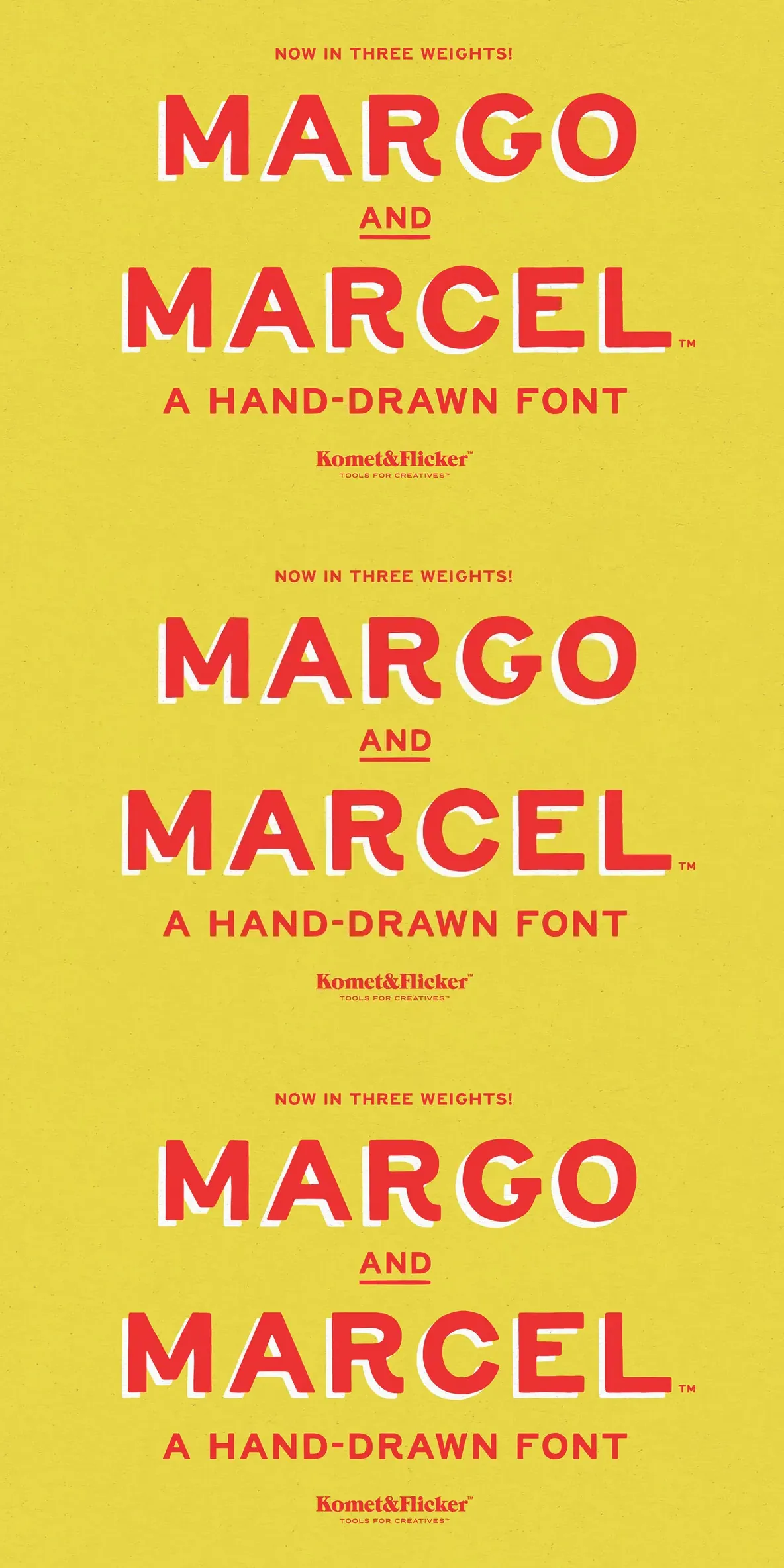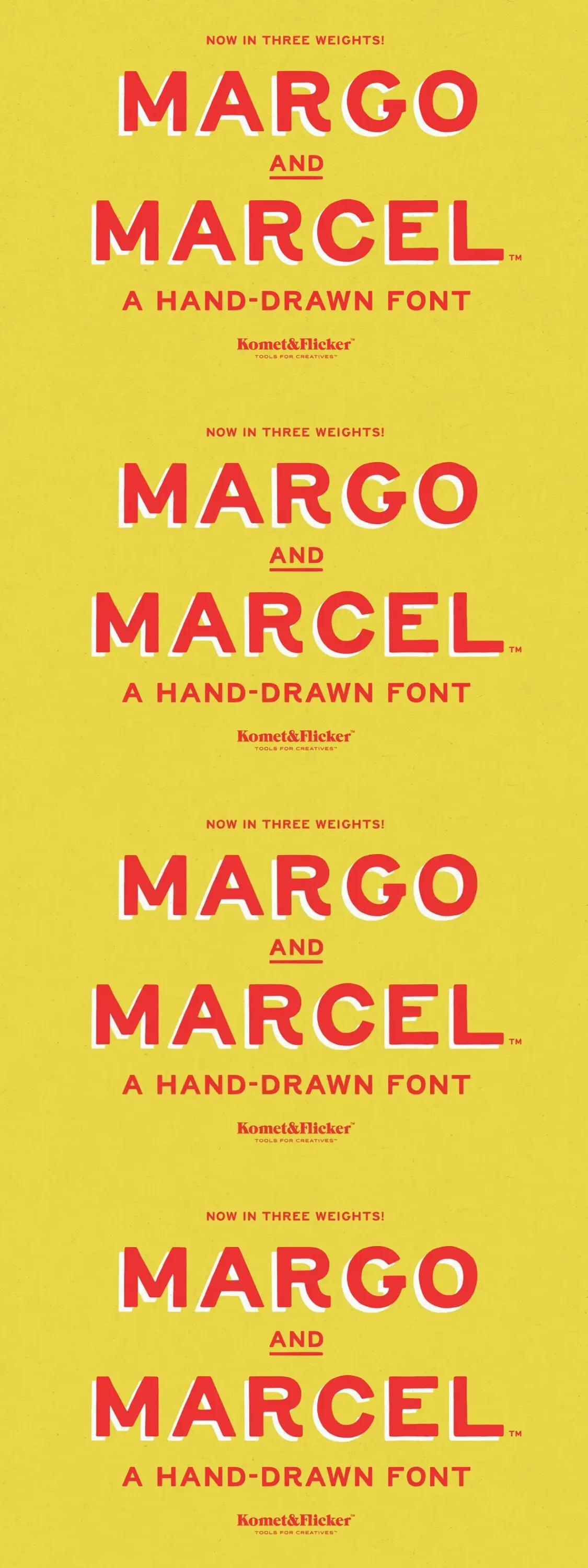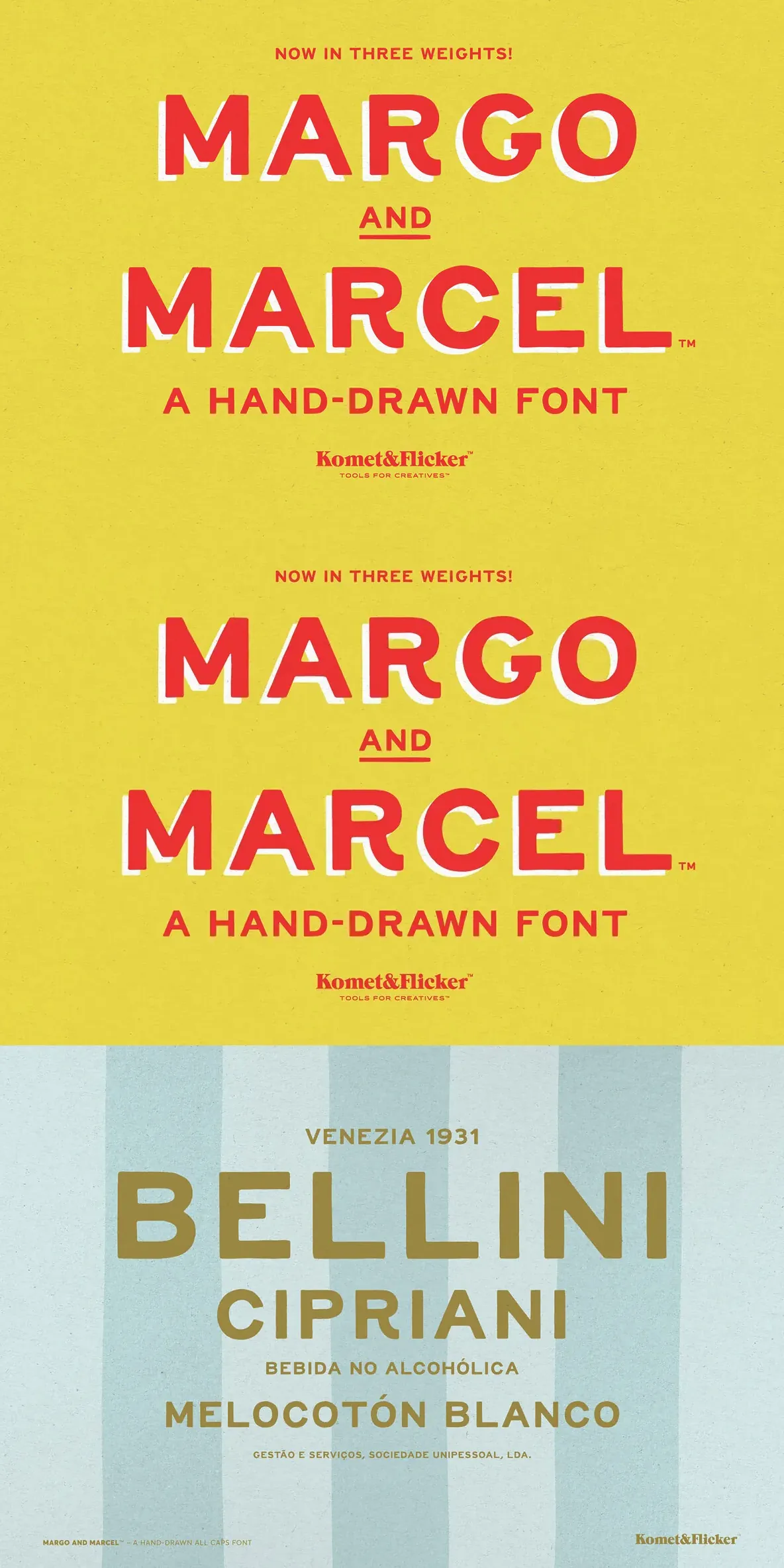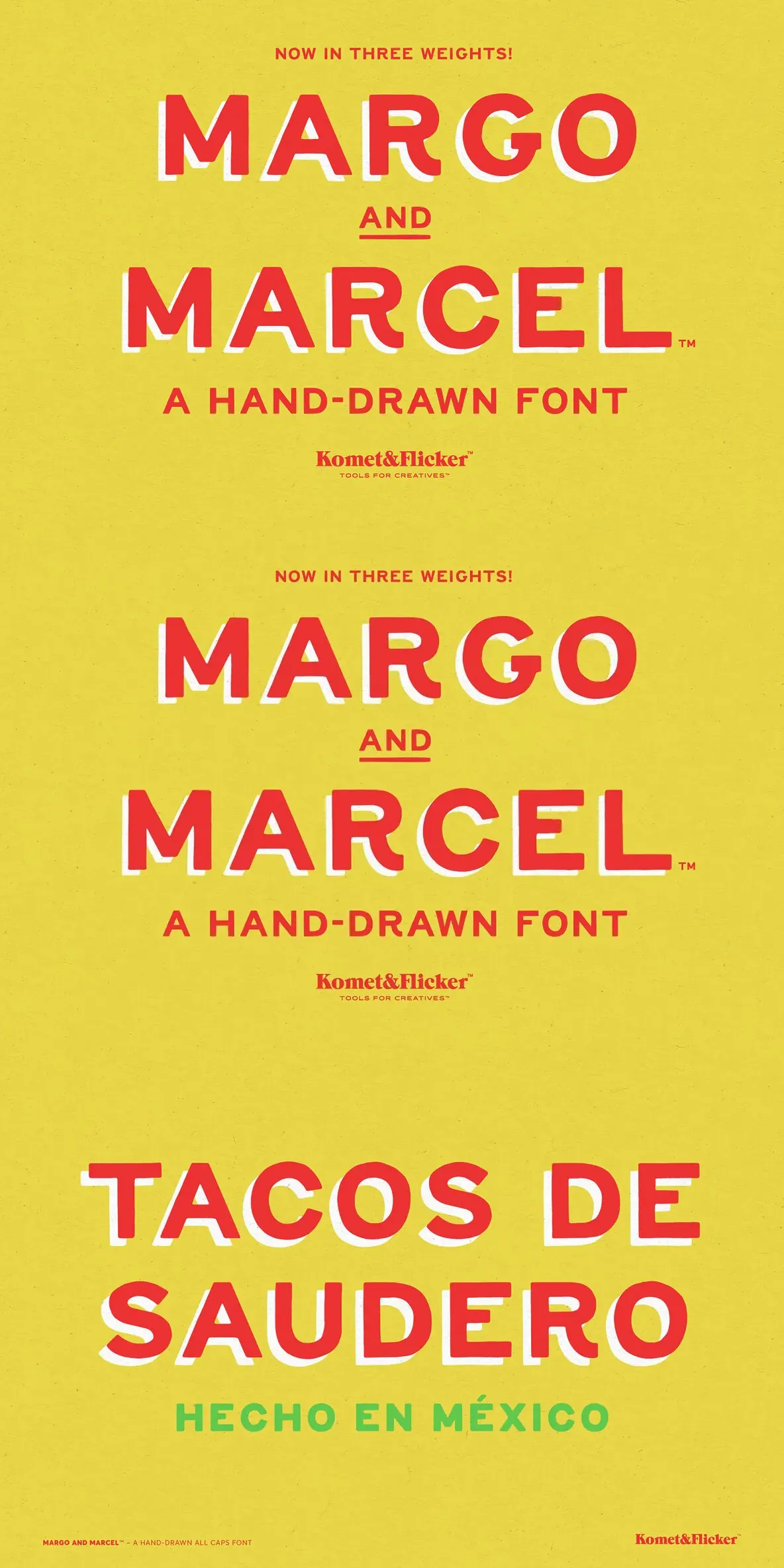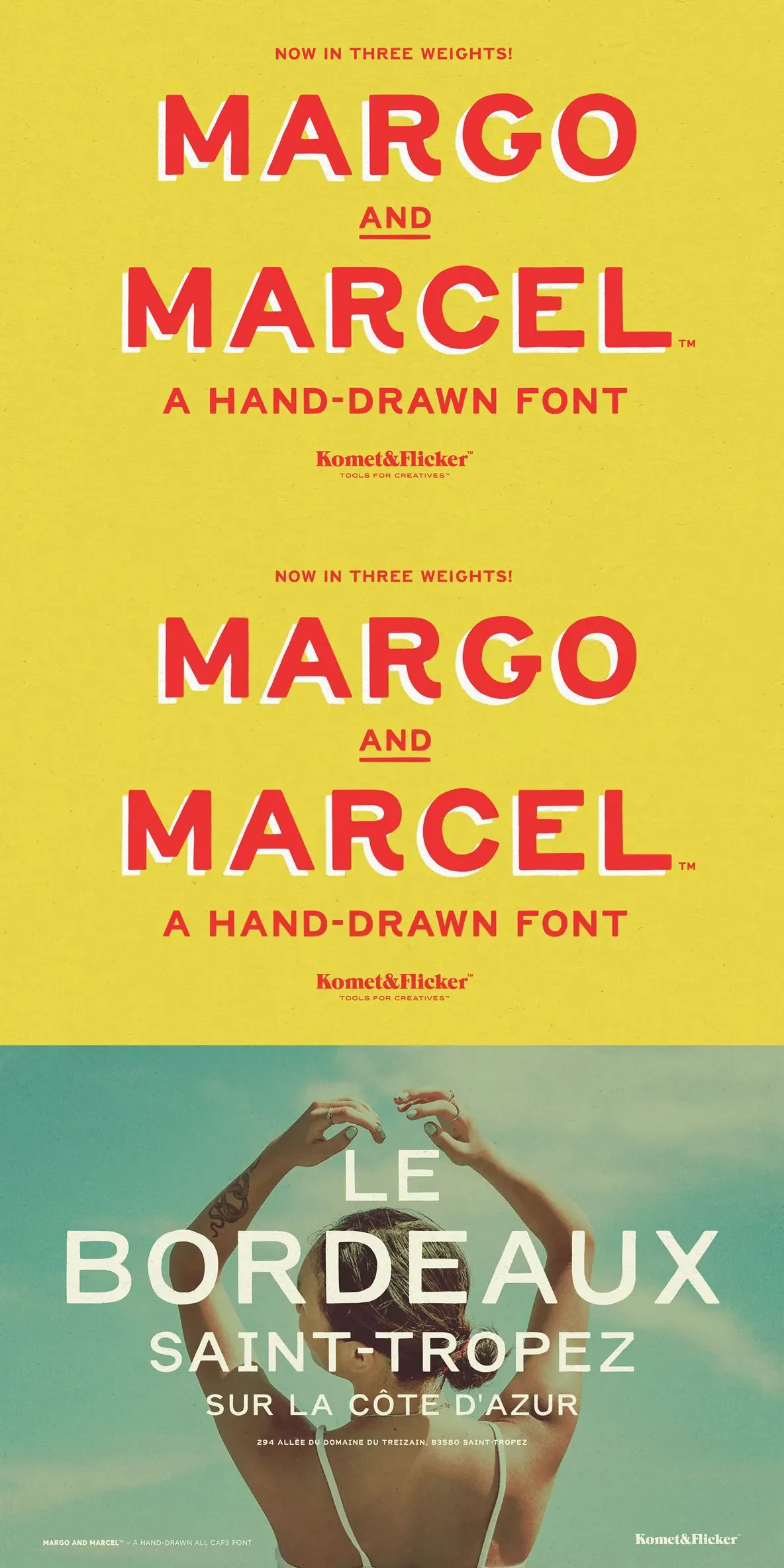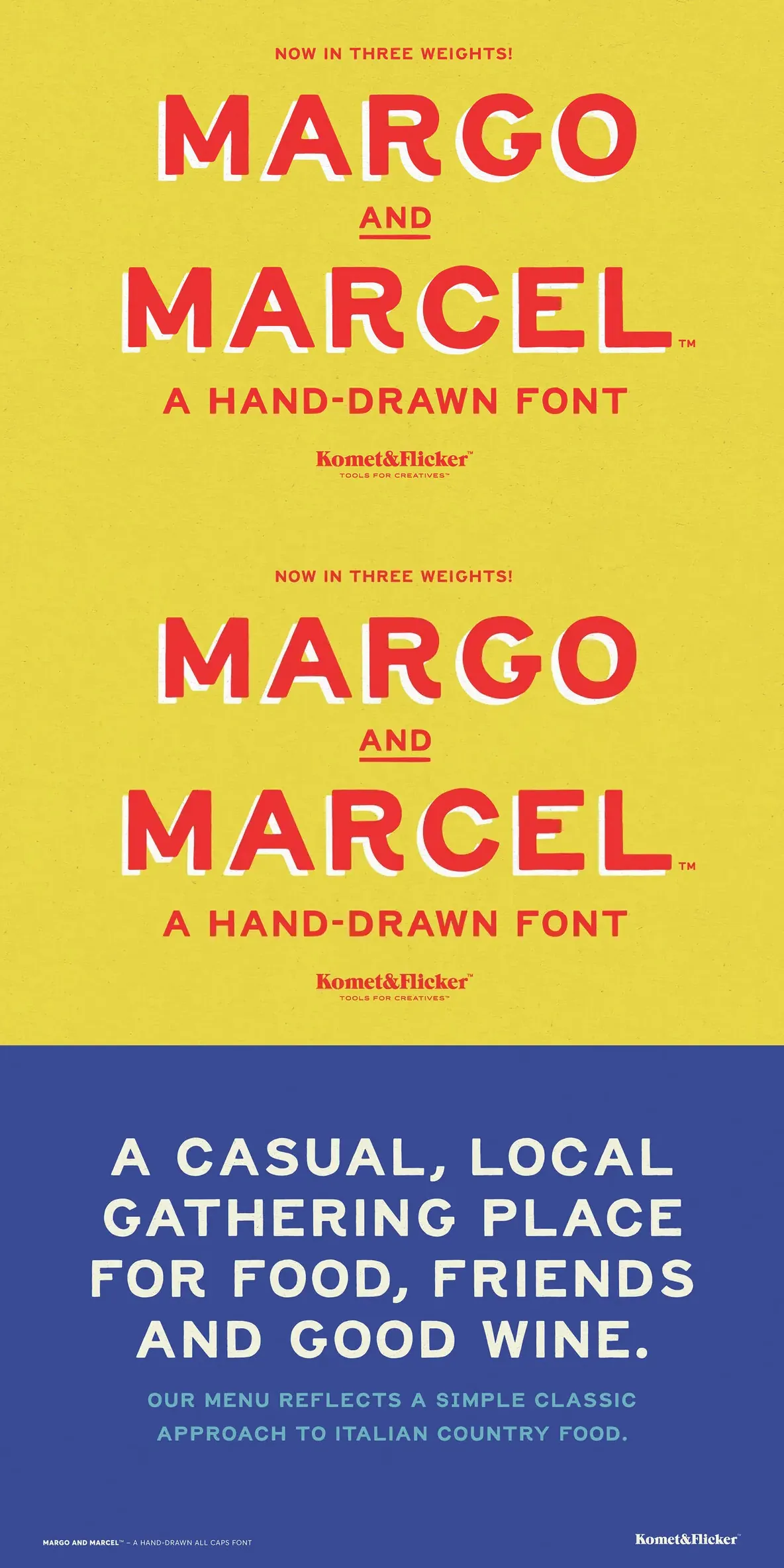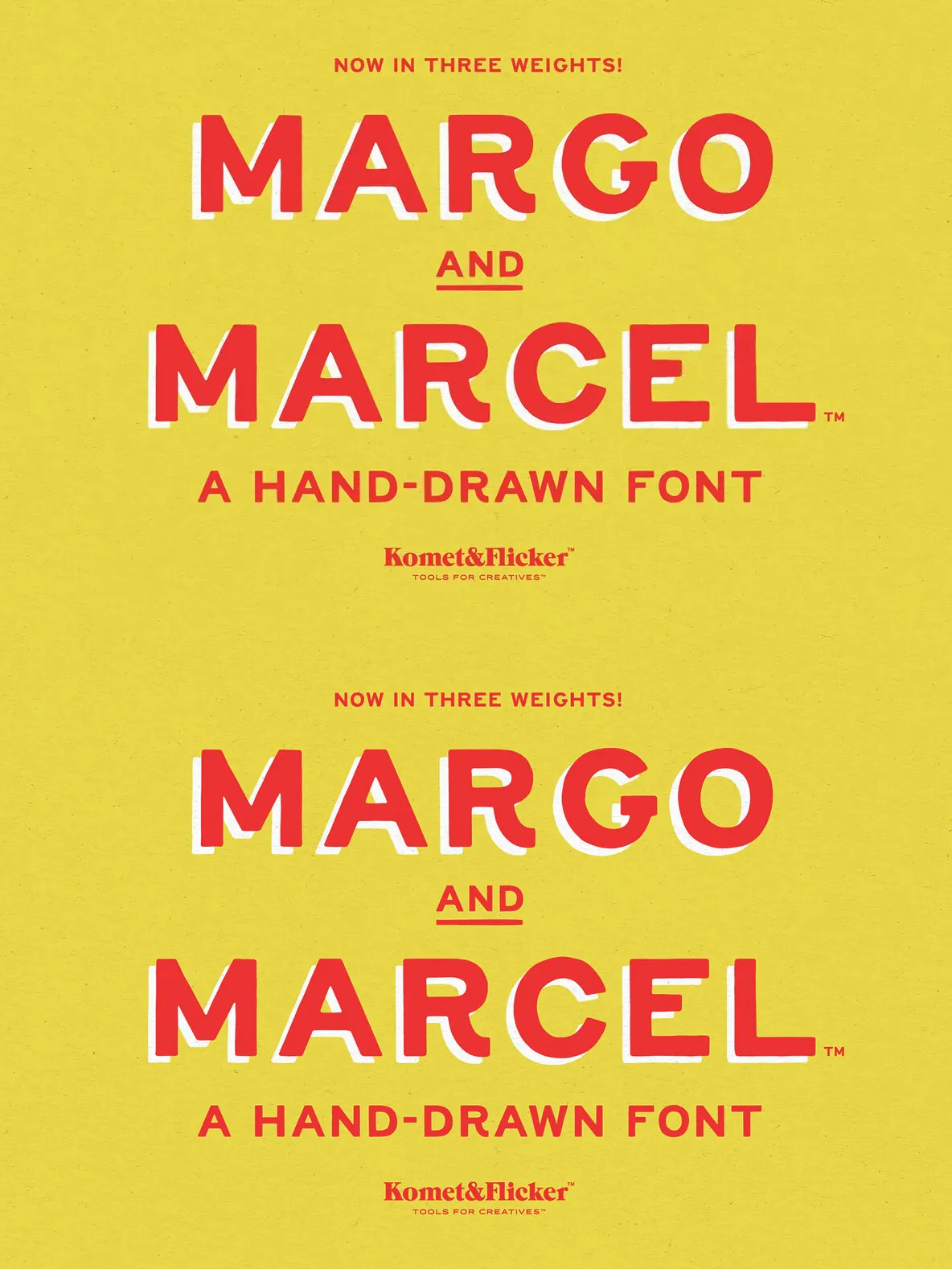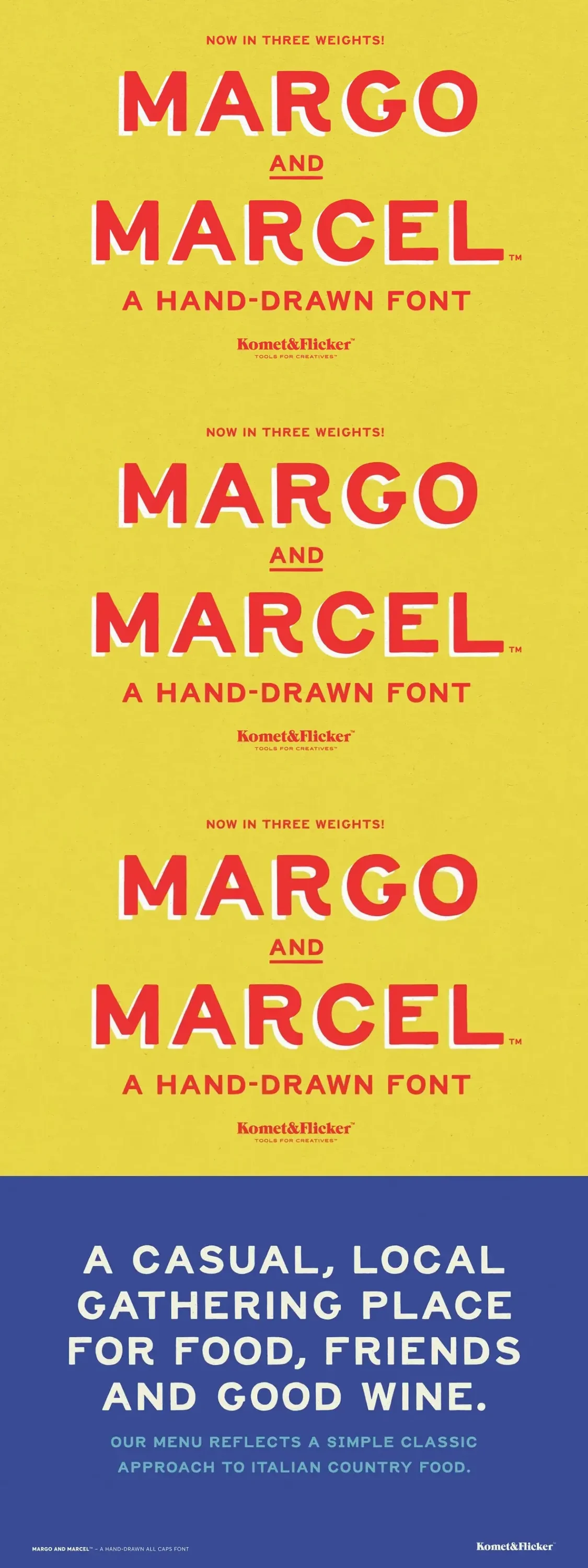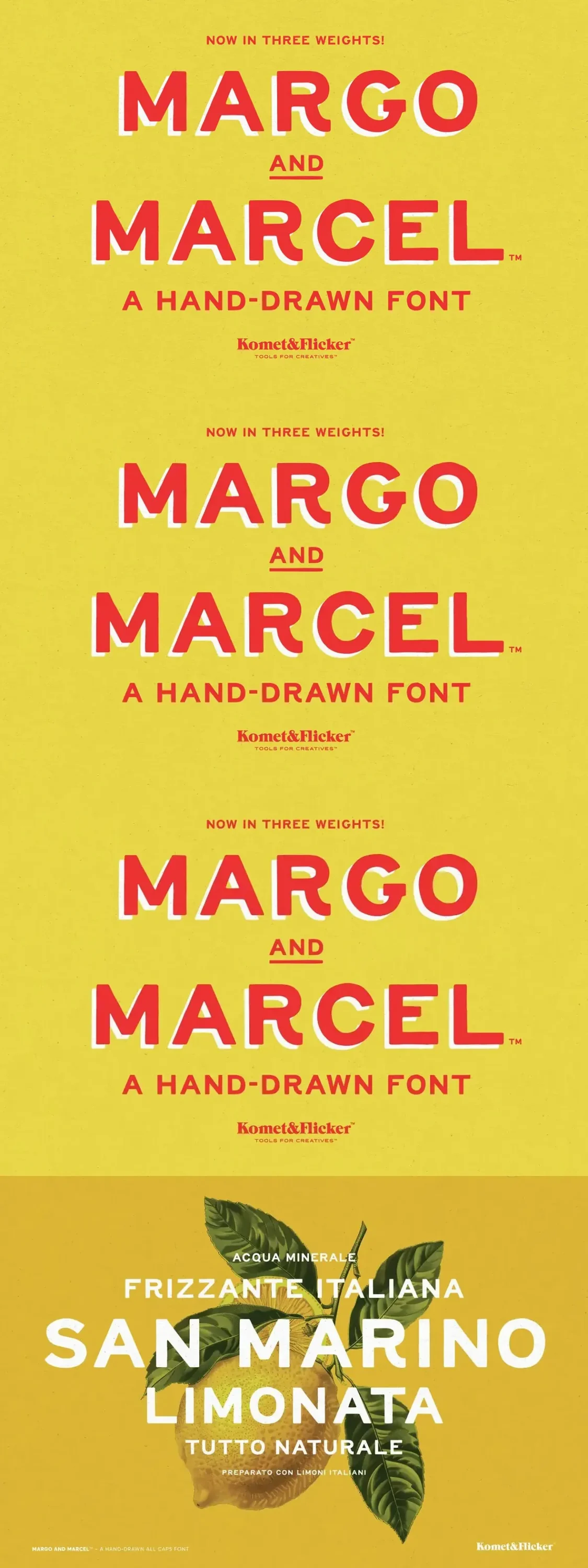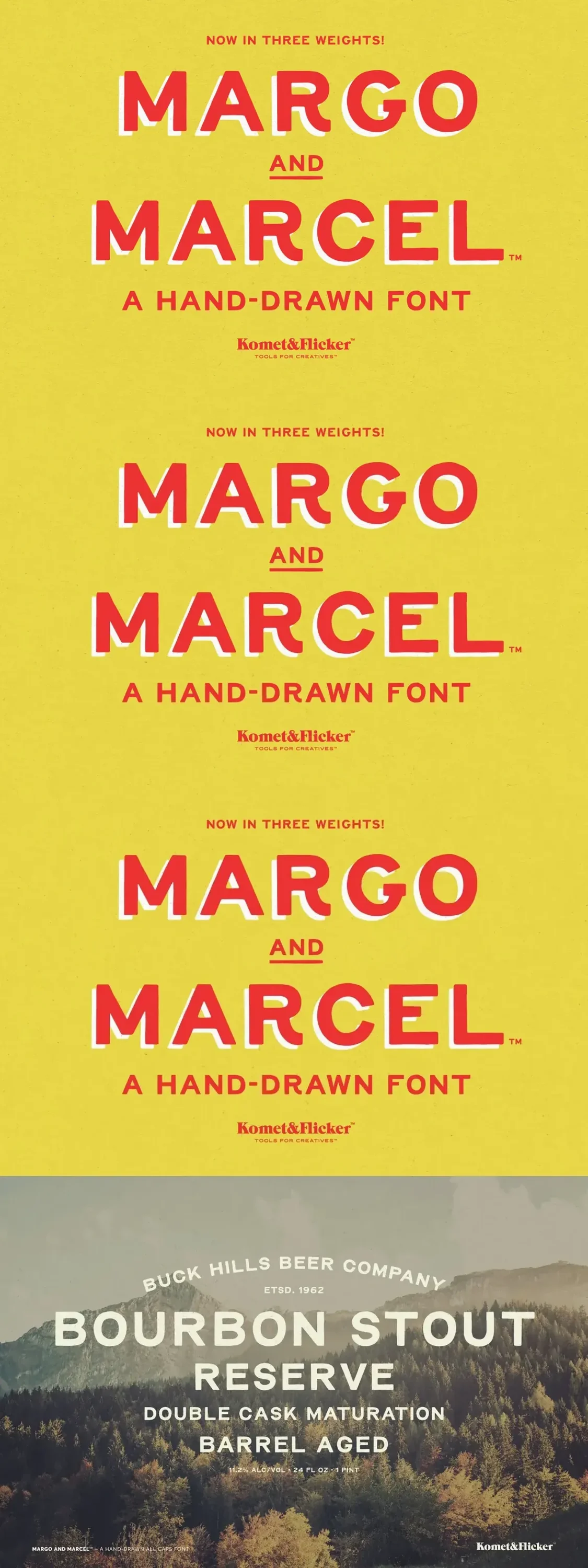
Margo and Marcel — All-Caps, Warm and Witty
Meet Margo and Marcel, a delightful all-caps font with a friendly, approachable tone. This hand-drawn typeface carries a warm, human touch, making it a strong choice for playful branding and relaxed layouts. Its organic, slightly imperfect lines give your typography a distinct personality while staying easy to read across a range of design settings.
Margo and Marcel includes alternate versions of select characters—C, G, I, J, K, Q, R, and S—so you can add subtle variation where it matters. You also get a set of 20 custom connecting word glyphs such as AND, THE, and WITH for quick, decorative word pairing in headlines and logo-style treatments.
Full A-Z uppercase basic Latin characters
Select European specific characters
Numbers, punctuation, and select symbols
Two styles of pre-made common fractions
Set of 20 custom connecting word glyphs